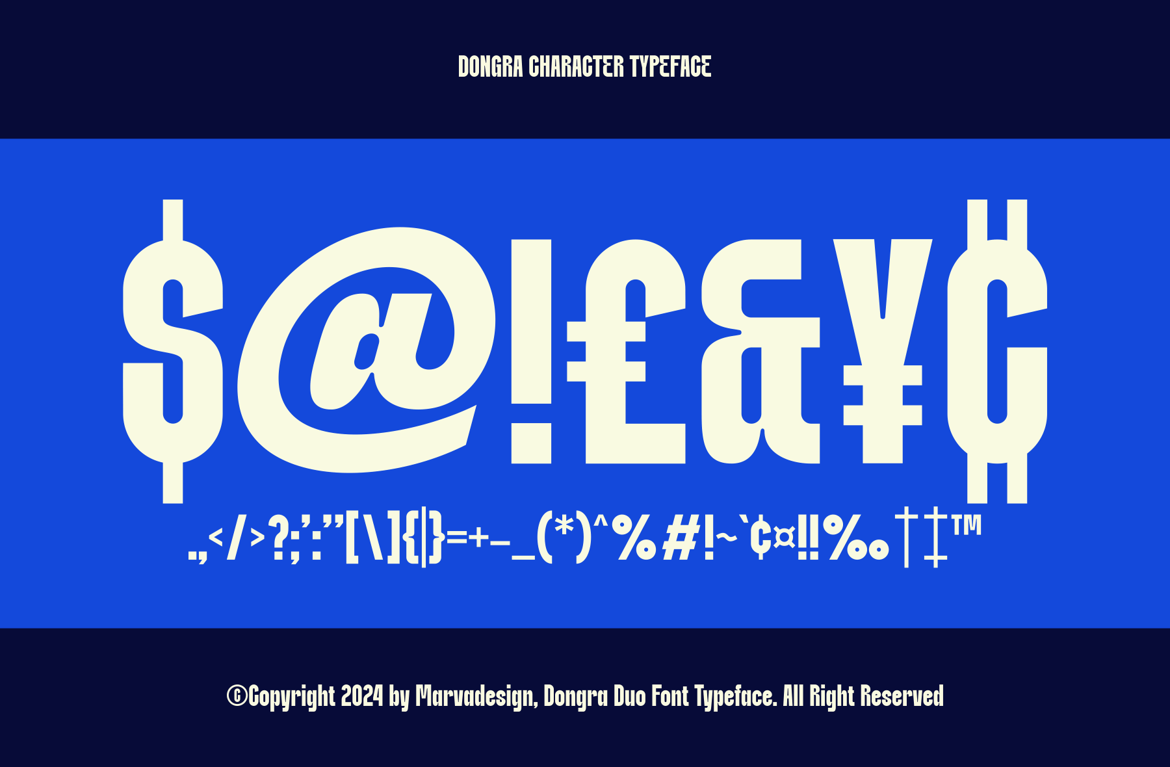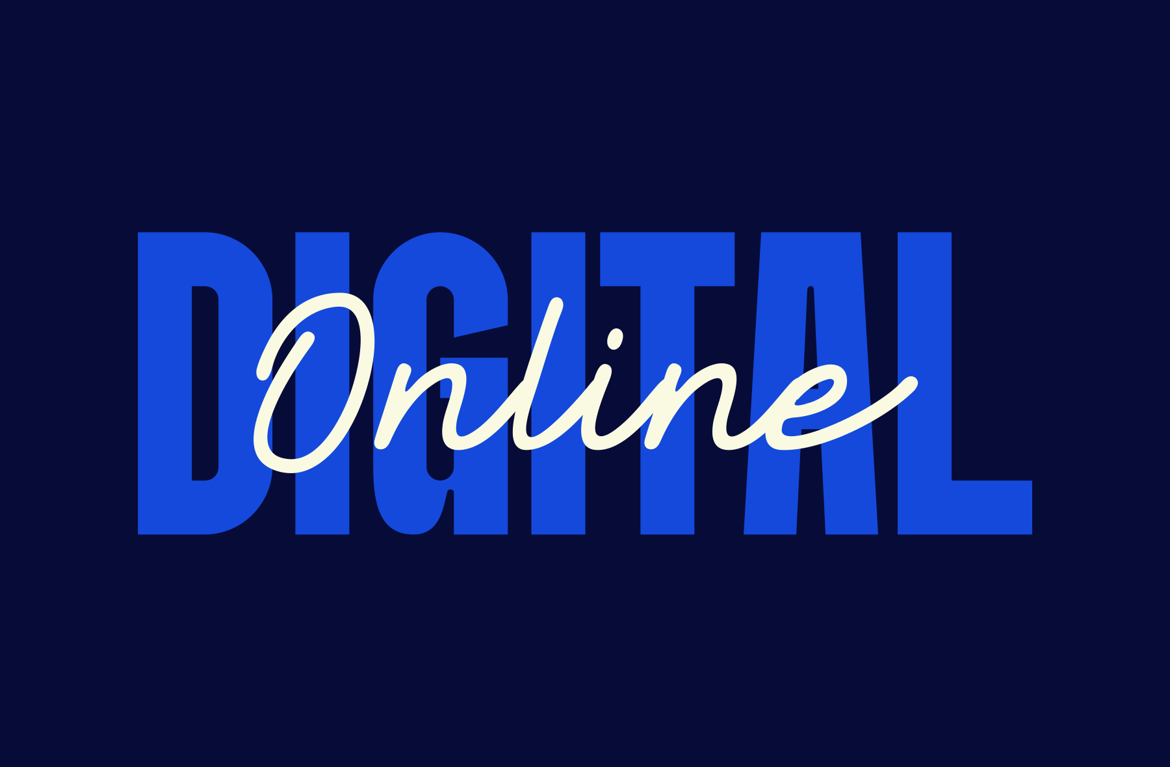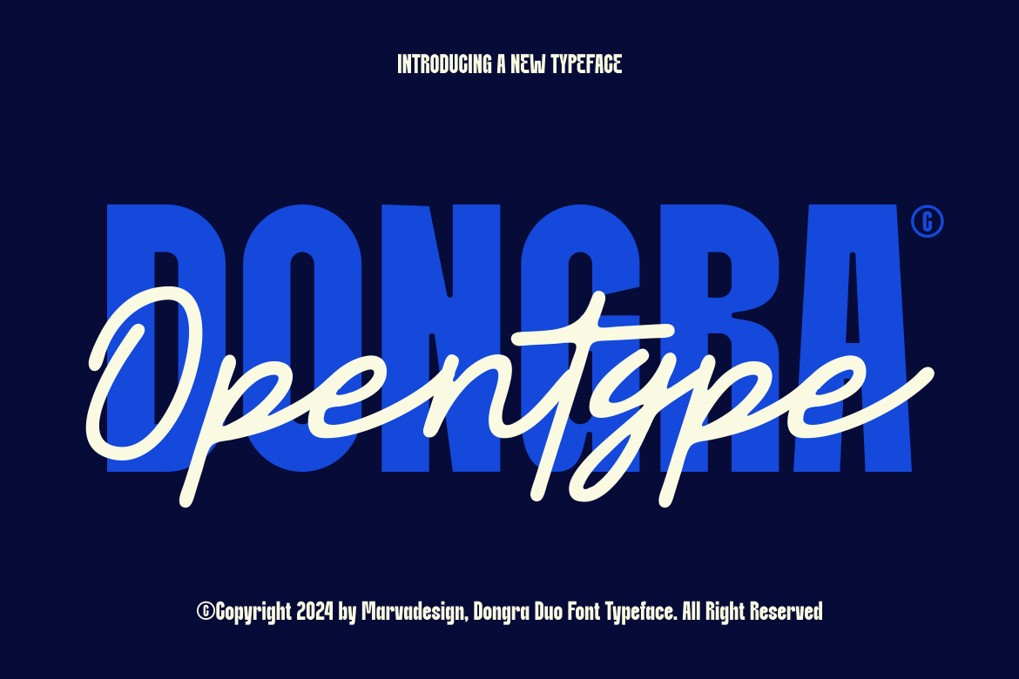
Dongra – Duo Font
Dongra Condensed
* Style: Modern
* Characteristics: Sleek and Clean
* High Legibility: Despite its condensed nature, the font maintains high legibility, making it suitable for both display and body text.
* Minimalistic: The modern style of Dongra Condensed embodies minimalism, with simple lines and a lack of unnecessary embellishments.
* Versatility: This style is ideal for a variety of applications, including headlines, posters, branding, and editorial design, where a contemporary look is desired.